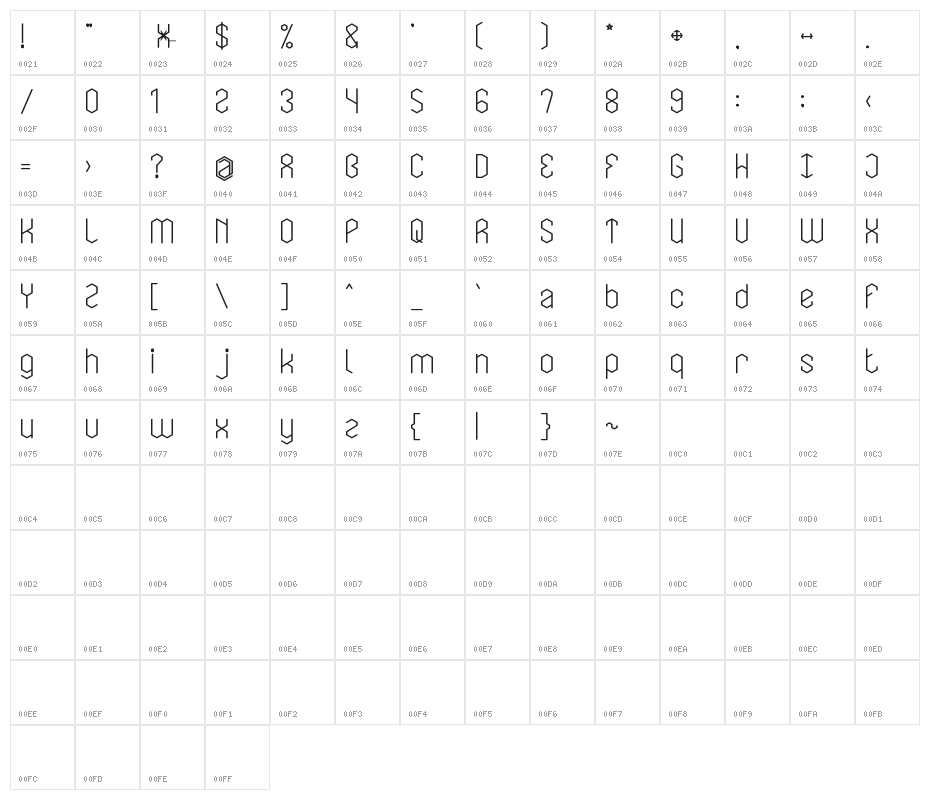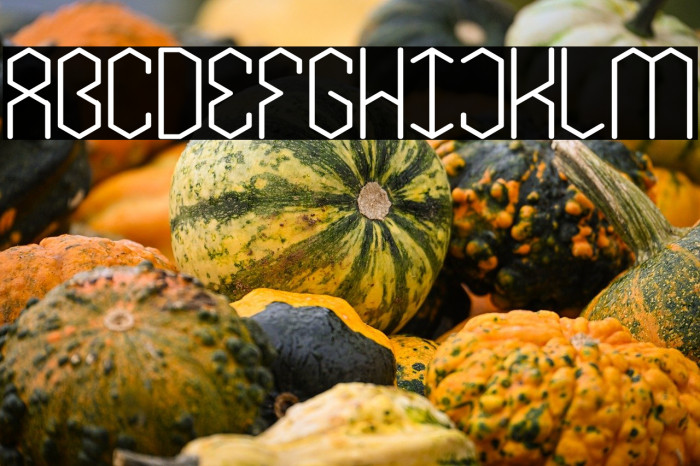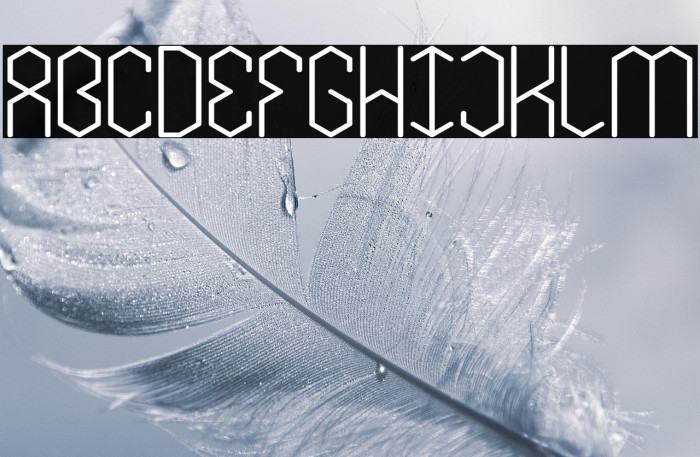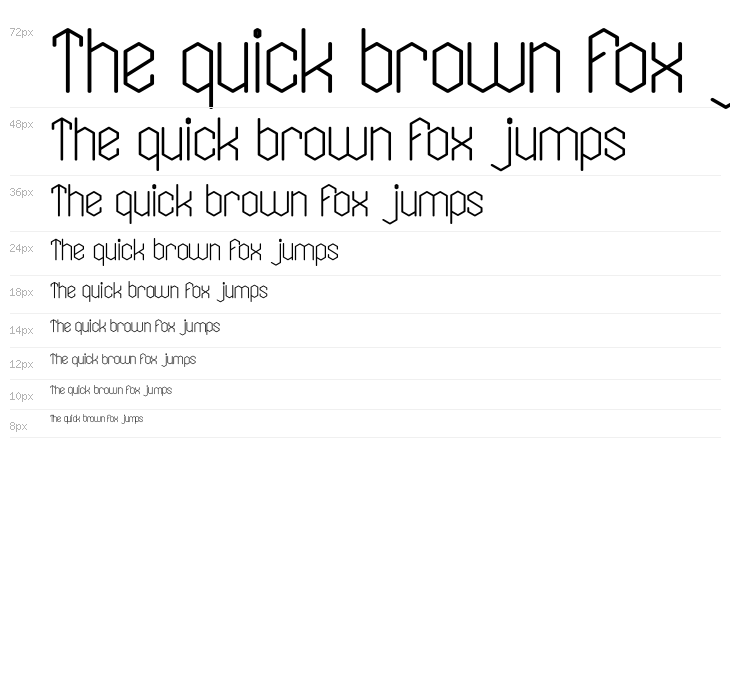
LOIS CESARANO Bold Font
LOIS CESARANO Bold Description
This font features a geometric and angular design, characterized by its sharp edges and linear forms. The uppercase and lowercase letters maintain a consistent height, creating a uniform appearance. The characters are constructed with a series of straight lines and angles, giving them a modern and futuristic look. The numbers and special characters follow the same design principles, ensuring a cohesive style throughout. The font's unique structure makes it stand out, while its clarity ensures readability.
Proposed ProjectsIdeal for tech-related branding, futuristic posters, and digital interfaces.